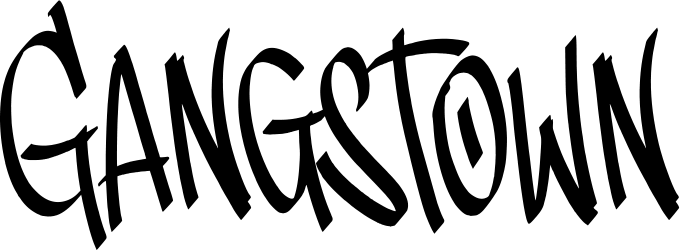
Gangstown GT Font
Do you want to bring some street artistic taste to your content? If you are interested in that, then we suggest you try Gangstown GT. This is a graffiti font, and you can use it in a variety of projects like print T-shirts, flyers’ titles, websites, logotypes, and product packaging.
This font comes with an awesome collection of characters containing both the uppercase and lowercase of the alphabet, the numbers, and the punctuation marks.